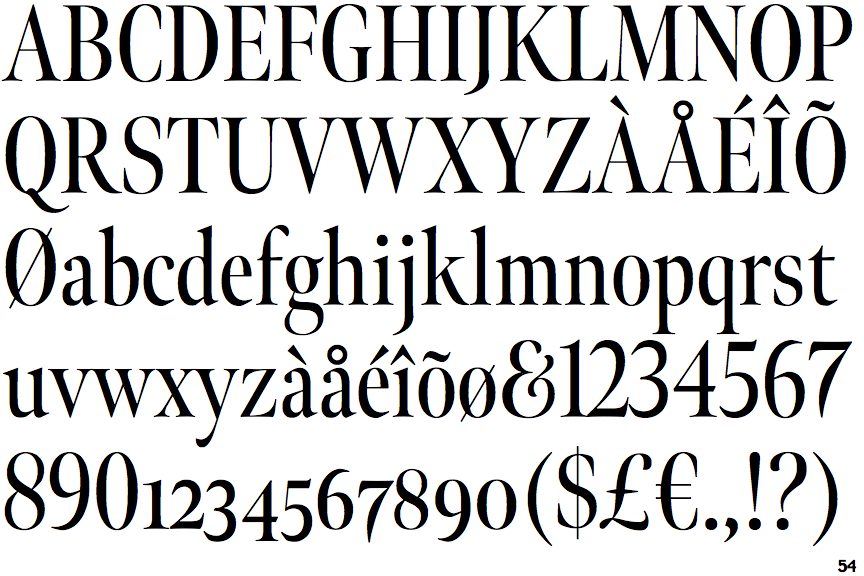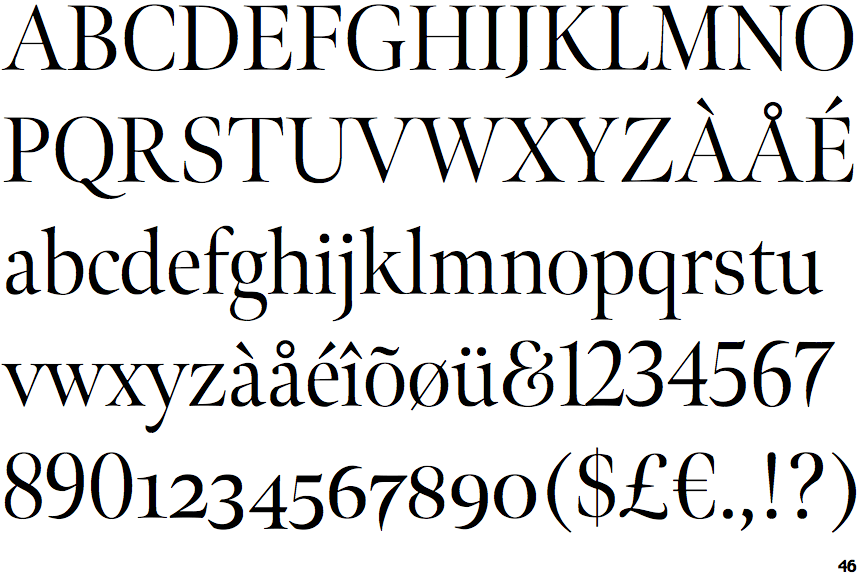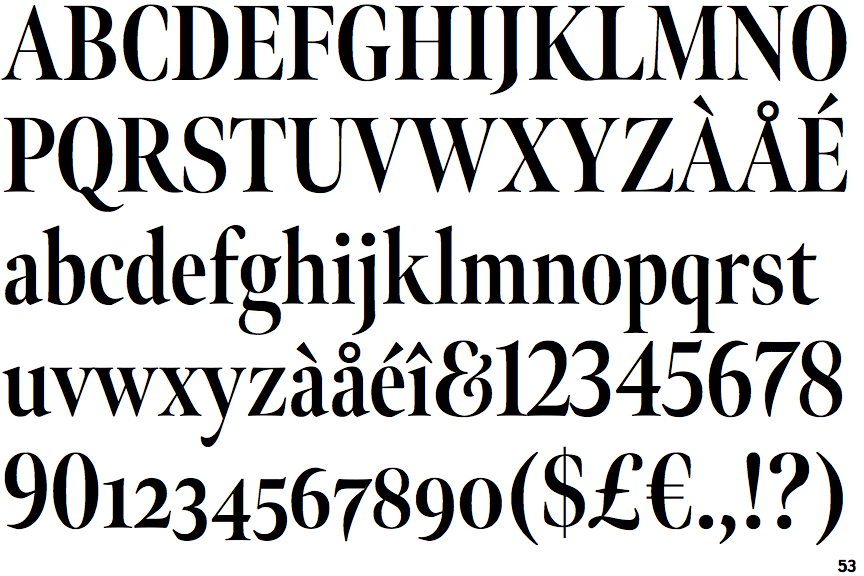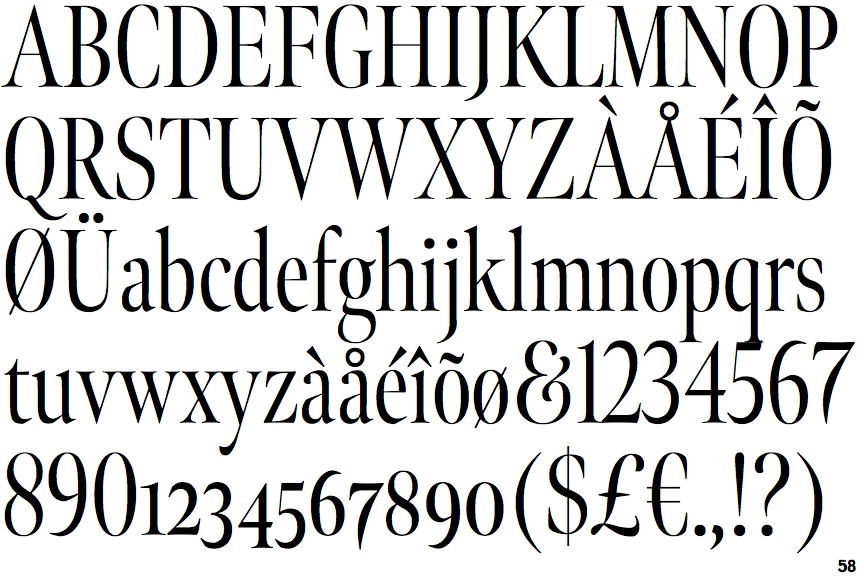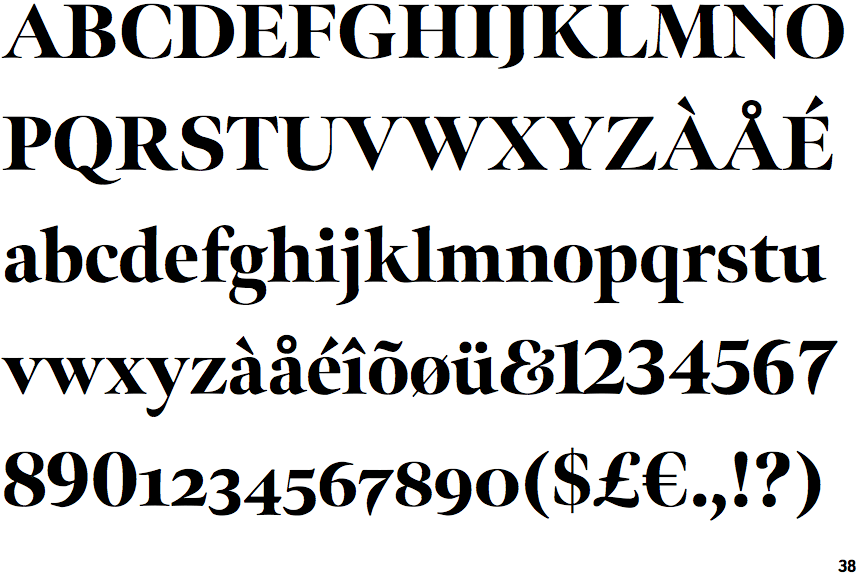
Meno Banner Font
Meno Banner Font - Web meno consists of three carefully drawn optical sizes—text, display, and banner, with condensed and extra condensed widths. The family was expanded in 2016 and is now is. Web explore meno banner designed by richard lipton at adobe fonts. Web meno is an oldstyle serif typeface originally designed in 1994 by richard lipton. Web meno consists of three carefully drawn optical sizes—text, display, and banner, with condensed and extra condensed widths.
Web meno is an oldstyle serif typeface originally designed in 1994 by richard lipton. Web explore meno banner designed by richard lipton at adobe fonts. Web meno consists of three carefully drawn optical sizes—text, display, and banner, with condensed and extra condensed widths. The family was expanded in 2016 and is now is. Web meno consists of three carefully drawn optical sizes—text, display, and banner, with condensed and extra condensed widths.
Web meno is an oldstyle serif typeface originally designed in 1994 by richard lipton. Web explore meno banner designed by richard lipton at adobe fonts. The family was expanded in 2016 and is now is. Web meno consists of three carefully drawn optical sizes—text, display, and banner, with condensed and extra condensed widths. Web meno consists of three carefully drawn optical sizes—text, display, and banner, with condensed and extra condensed widths.
Web meno consists of three carefully drawn optical sizes—text, display, and banner, with condensed and extra condensed widths. Web explore meno banner designed by richard lipton at adobe fonts. The family was expanded in 2016 and is now is. Web meno consists of three carefully drawn optical sizes—text, display, and banner, with condensed and extra condensed widths. Web meno is.
The family was expanded in 2016 and is now is. Web meno consists of three carefully drawn optical sizes—text, display, and banner, with condensed and extra condensed widths. Web explore meno banner designed by richard lipton at adobe fonts. Web meno consists of three carefully drawn optical sizes—text, display, and banner, with condensed and extra condensed widths. Web meno is.
Web meno is an oldstyle serif typeface originally designed in 1994 by richard lipton. Web meno consists of three carefully drawn optical sizes—text, display, and banner, with condensed and extra condensed widths. Web meno consists of three carefully drawn optical sizes—text, display, and banner, with condensed and extra condensed widths. The family was expanded in 2016 and is now is..
Web meno consists of three carefully drawn optical sizes—text, display, and banner, with condensed and extra condensed widths. The family was expanded in 2016 and is now is. Web meno consists of three carefully drawn optical sizes—text, display, and banner, with condensed and extra condensed widths. Web meno is an oldstyle serif typeface originally designed in 1994 by richard lipton..
Web meno consists of three carefully drawn optical sizes—text, display, and banner, with condensed and extra condensed widths. Web meno is an oldstyle serif typeface originally designed in 1994 by richard lipton. The family was expanded in 2016 and is now is. Web meno consists of three carefully drawn optical sizes—text, display, and banner, with condensed and extra condensed widths..
The family was expanded in 2016 and is now is. Web meno is an oldstyle serif typeface originally designed in 1994 by richard lipton. Web meno consists of three carefully drawn optical sizes—text, display, and banner, with condensed and extra condensed widths. Web explore meno banner designed by richard lipton at adobe fonts. Web meno consists of three carefully drawn.
Web meno consists of three carefully drawn optical sizes—text, display, and banner, with condensed and extra condensed widths. Web meno consists of three carefully drawn optical sizes—text, display, and banner, with condensed and extra condensed widths. Web explore meno banner designed by richard lipton at adobe fonts. The family was expanded in 2016 and is now is. Web meno is.
Web meno consists of three carefully drawn optical sizes—text, display, and banner, with condensed and extra condensed widths. Web meno is an oldstyle serif typeface originally designed in 1994 by richard lipton. The family was expanded in 2016 and is now is. Web explore meno banner designed by richard lipton at adobe fonts. Web meno consists of three carefully drawn.
Web meno is an oldstyle serif typeface originally designed in 1994 by richard lipton. Web explore meno banner designed by richard lipton at adobe fonts. The family was expanded in 2016 and is now is. Web meno consists of three carefully drawn optical sizes—text, display, and banner, with condensed and extra condensed widths. Web meno consists of three carefully drawn.
The Family Was Expanded In 2016 And Is Now Is.
Web meno is an oldstyle serif typeface originally designed in 1994 by richard lipton. Web explore meno banner designed by richard lipton at adobe fonts. Web meno consists of three carefully drawn optical sizes—text, display, and banner, with condensed and extra condensed widths. Web meno consists of three carefully drawn optical sizes—text, display, and banner, with condensed and extra condensed widths.